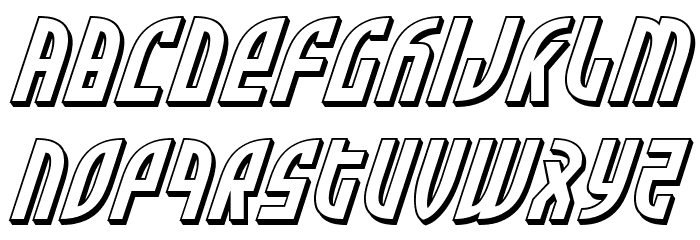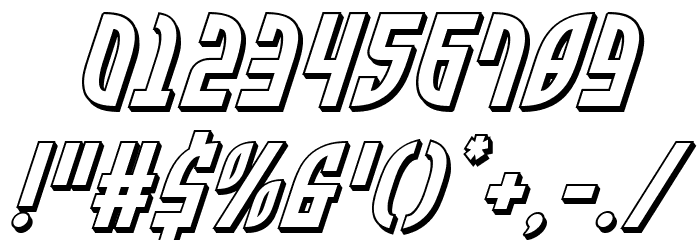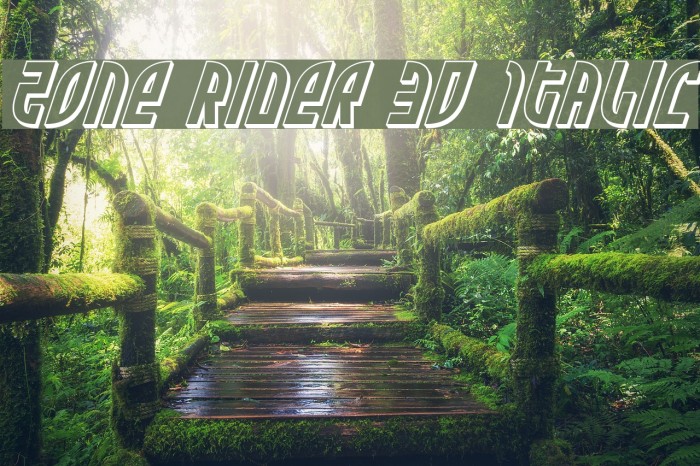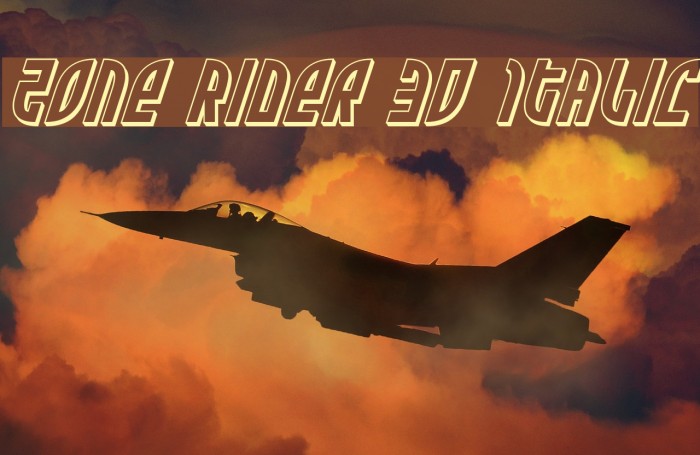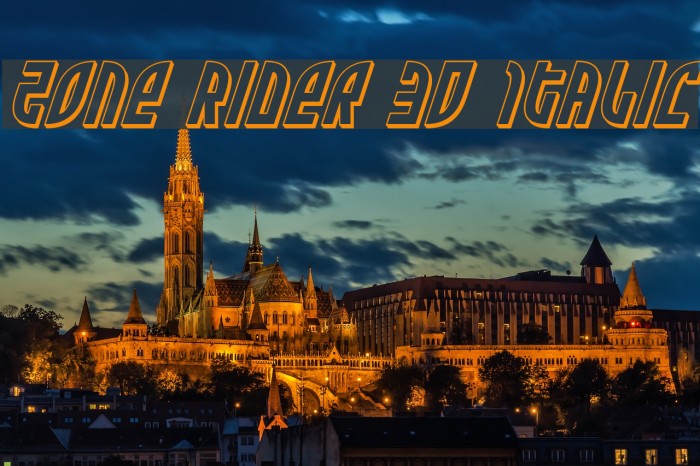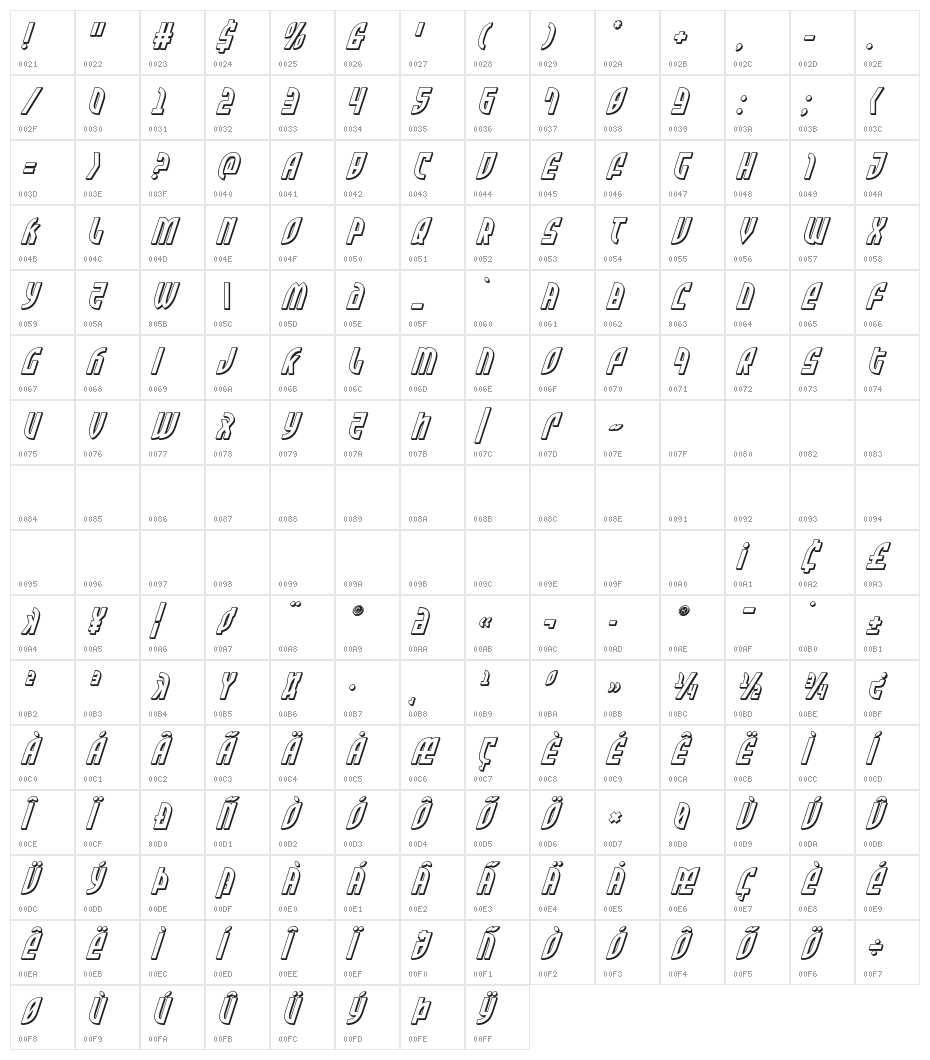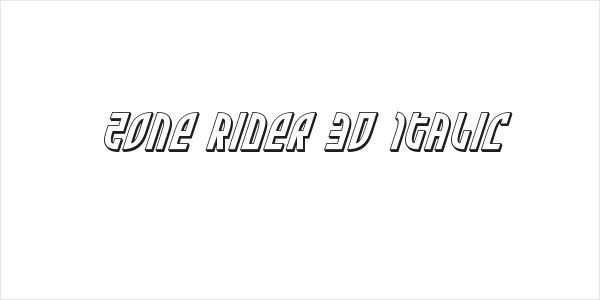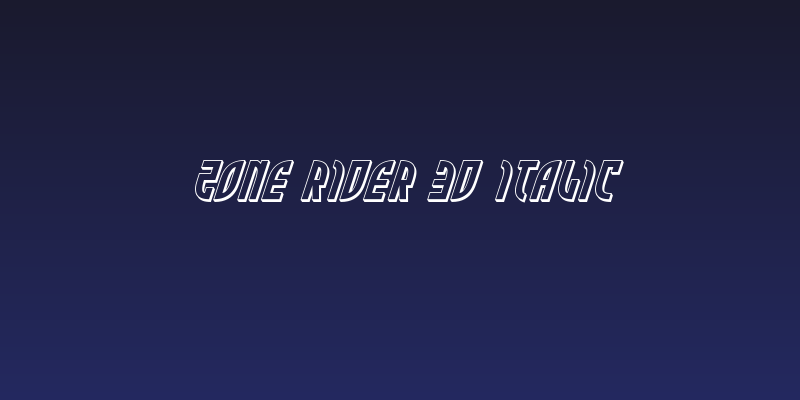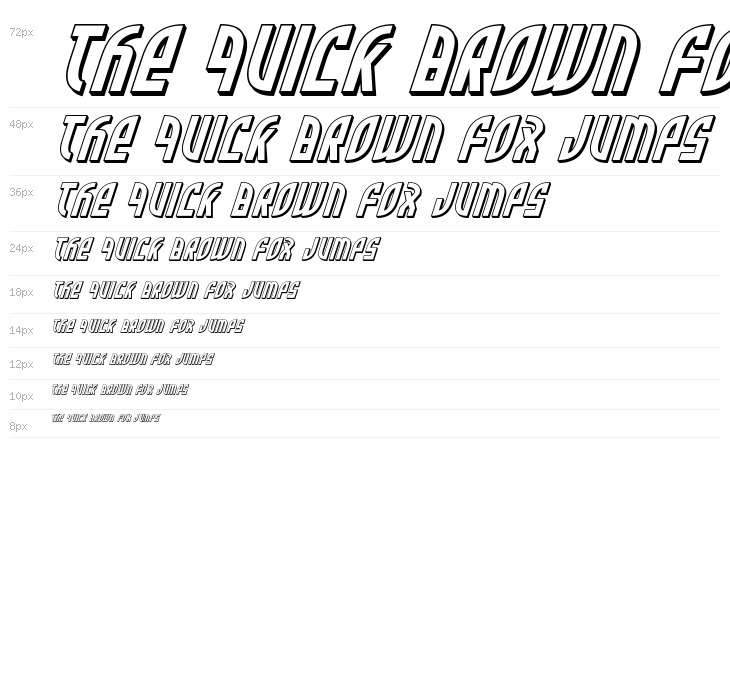
Zone Rider 3D Italic Font
This font features a bold, three-dimensional design with a strong italic slant, giving it a dynamic and futuristic appearance. The characters are outlined, creating a sense of depth and movement. The uppercase and lowercase letters maintain a consistent style, with angular edges and a geometric structure. The numerals and special characters follow the same design principles, ensuring uniformity across all glyphs. This font is visually striking and commands attention, making it suitable for projects that require a modern and edgy aesthetic.
A bold, 3D italic font with a futuristic and dynamic style.
- Proposed Projects: Ideal for video game titles, sci-fi movie posters, tech branding, and sports team logos.